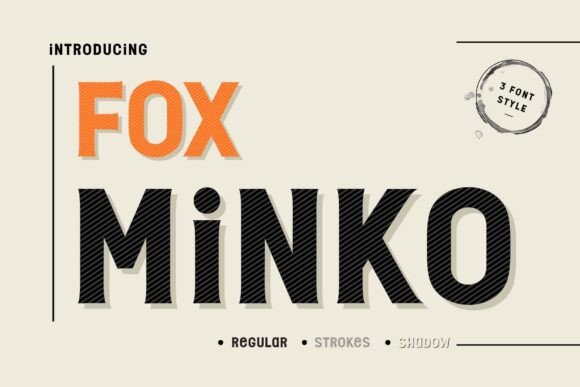
Fox Minko: A Bold Retro Display Font for Digital Branding
As a web and UI designer who ships dozens of landing pages, SaaS dashboards, and e-commerce experiences each year, I pay close attention to how typography shapes first impressions—and Fox Minko consistently earns its place in my go-to display font toolkit. It’s not just another retro-inspired typeface; it’s a carefully engineered display font built for clarity, contrast, and character at scale.
Fox Minko delivers three distinct styles—Regular, Outline, and Shadow—that work together like modular design assets. Each variant maintains consistent proportions and spacing, making it easy to switch between them without breaking layout rhythm. The letterforms are strong and slightly condensed, with subtle flares on terminals and generous x-heights that boost readability—even at smaller sizes on mobile viewports. Its personality sits comfortably between mid-century poster energy and contemporary digital polish: playful but never childish, bold but never overwhelming.
Where Fox Minko Earns Its Place on Screen
In real-world web projects, Fox Minko excels where visual hierarchy and brand tone converge. Think hero section headlines on a creative agency site, product name treatments in an online boutique, or course title cards in a learning platform. Its weight and presence immediately signal importance, guiding the eye before the user reads a single word.
For conversion-focused layouts, I use Fox Minko selectively—but intentionally. A headline like “Launch Your Dream Studio” in Fox Minko Regular over clean sans-serif body copy creates instant tonal contrast and emotional resonance. On a coaching website, pairing Fox Minko Outline with a neutral sans serif (like Inter or Manrope) adds texture without sacrificing scannability. And for digital ads or social banners, the Shadow style adds dimensionality that holds up even when scaled down or overlaid on busy imagery.
Readability & Responsiveness: Practical Notes
Fox Minko is designed for display use—not body text—so I reserve it for headings, short phrases, CTA buttons, and logo lockups. That said, its generous letter spacing and open counters help it remain legible down to ~24px on desktop and ~20px on mobile—especially when used against high-contrast backgrounds. On dark mode interfaces, I often pair Fox Minko Regular with light gray or white for crisp definition; on light backgrounds, charcoal or deep navy ensures depth without glare.
When layered over photos or gradients, I apply subtle text shadows or background overlays—never relying solely on transparency. The Outline and Shadow styles shine here: they’re built to perform in complex visual environments without needing extra CSS tricks. Just be mindful of line length—keep Fox Minko to 1–2 lines max in hero sections. Longer blocks dilute its impact and strain readability.
Font Pairing That Supports, Not Competes
A great display font only works when paired thoughtfully. With Fox Minko, I default to highly legible, low-contrast sans serifs for body copy—Inter, Poppins, or Work Sans are reliable choices. Their neutrality lets Fox Minko’s personality lead while keeping reading effortless. For editorial or luxury-facing sites, I’ve tested Fox Minko against warm serifs like Cormorant Garamond or Playfair Display—especially in section headers above long-form content. The contrast feels intentional, not jarring.
Avoid pairing Fox Minko with other decorative fonts, script fonts, or overly geometric sans serifs. Its retro-modern voice needs breathing room. If your brand uses a custom logo font, Fox Minko can serve as a versatile secondary display option across web components—maintaining cohesion without repeating the same visual motif.
Fox Minko ships as a premium font with full webfont support—including WOFF2 files optimized for fast loading. It includes Latin multilingual characters, basic punctuation, and OpenType features like stylistic alternates and ligatures (useful for tightening custom headlines). No variable font axis yet—but the three included styles give enough flexibility for most branding systems.
Use Cases That Shine With Fox Minko
- Creative portfolios: Use Fox Minko Regular for project titles and Outline for “Featured Work” subheaders—clean, confident, and distinctly human.
- Boutique online stores: Apply Fox Minko Shadow to limited-edition product banners; its depth reads as premium, not gimmicky.
- Course sales pages: Deploy Fox Minko in H1s and key benefit bullets—its boldness reinforces value before the scroll.
- Coaching or consulting sites: Combine Fox Minko with soft sans-serif body text to balance authority and approachability.
It’s the kind of font that earns repeat use—not because it’s flashy, but because it solves real problems: establishing tone quickly, reinforcing brand memory, and holding visual weight across devices. When every pixel serves a purpose, Fox Minko is less decoration and more design infrastructure.